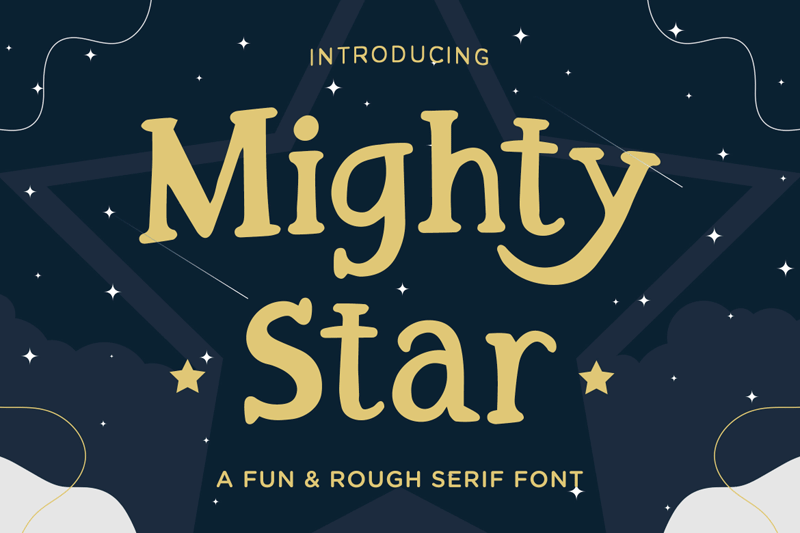
Font name: | Mighty Star |
Author: | Type Factory |
Note by Type Factory | |
Mighty Star is a fun and rough serif font useful for a wide variety of designs, its charming look will definitely make your crafts more fabulous! Great for your personal needs, promotional projects, gifts, scrapbooks, printing, and much more. Full Version Download Here : https://typefactory.co/product/mighty-star-a-fun-and-rough-serif-font/ https://www.creativefabrica.com/product/mighty-star/ |